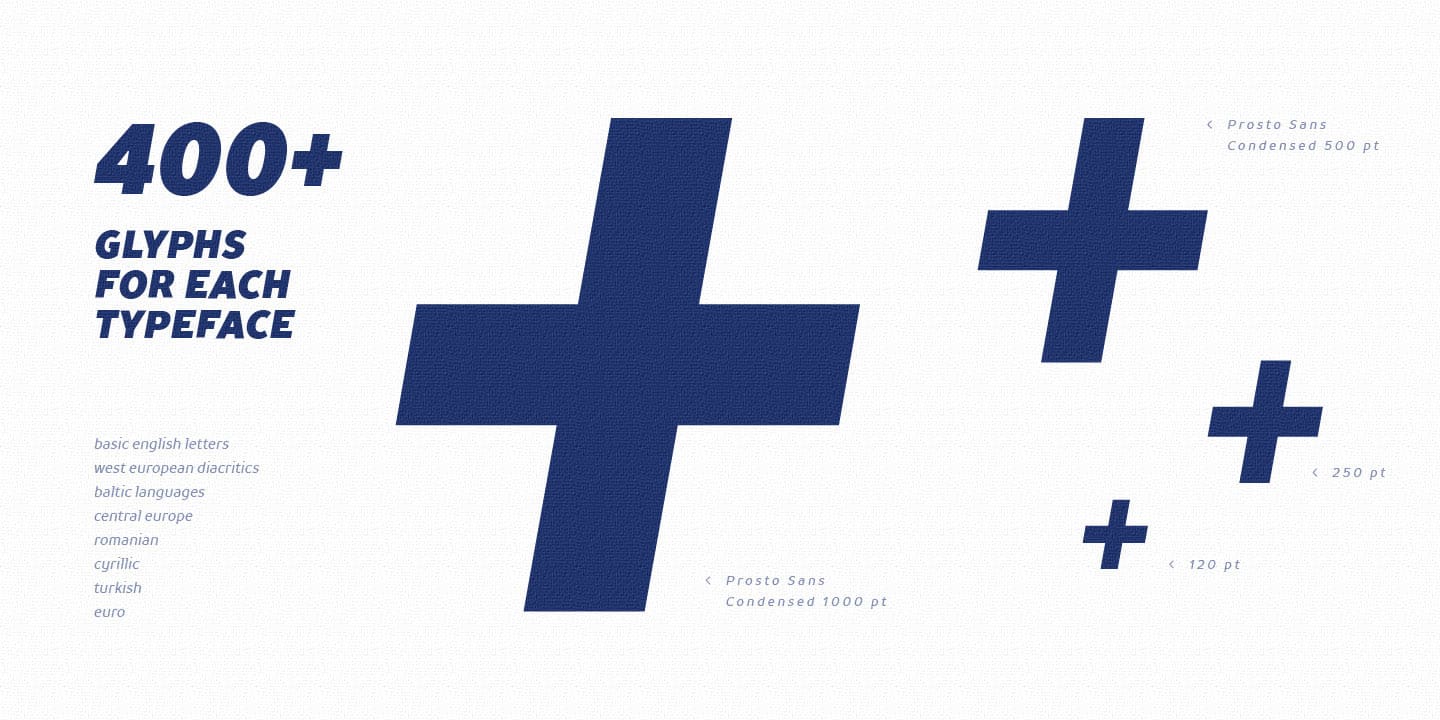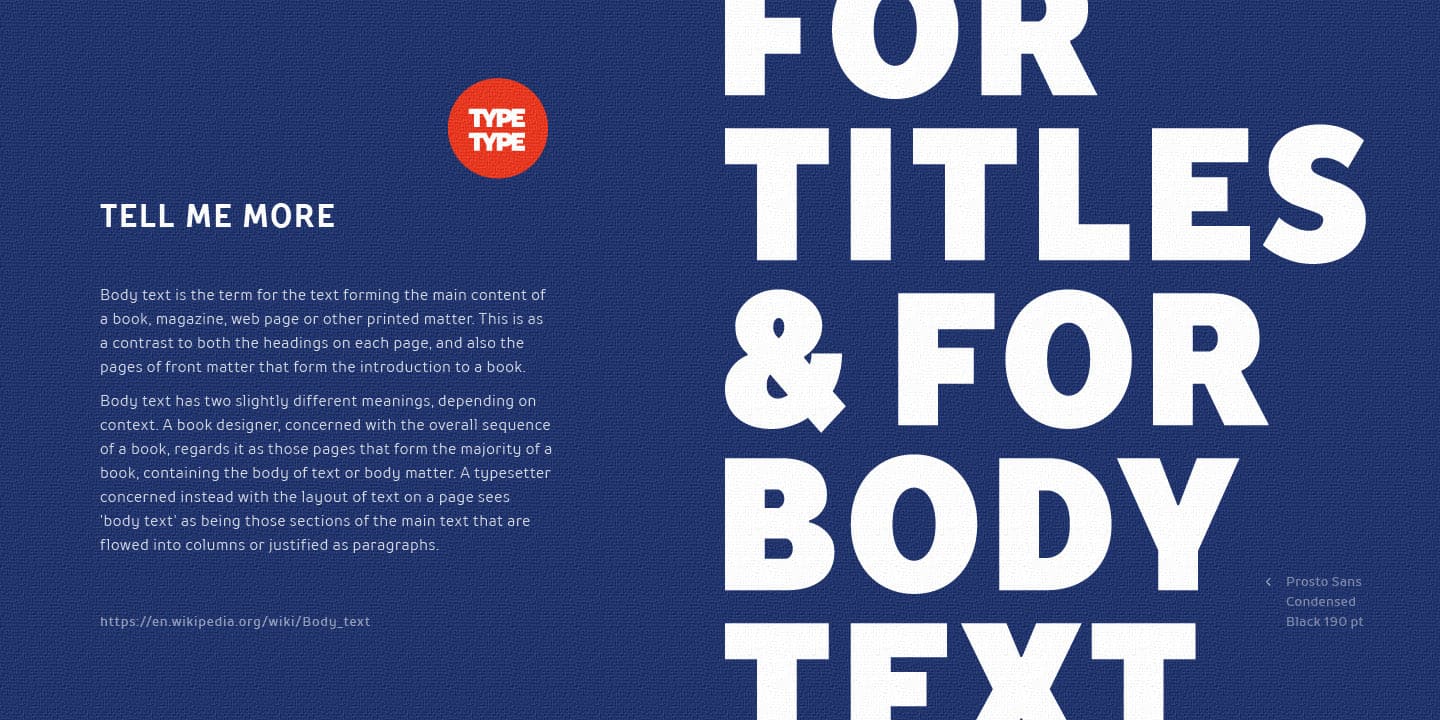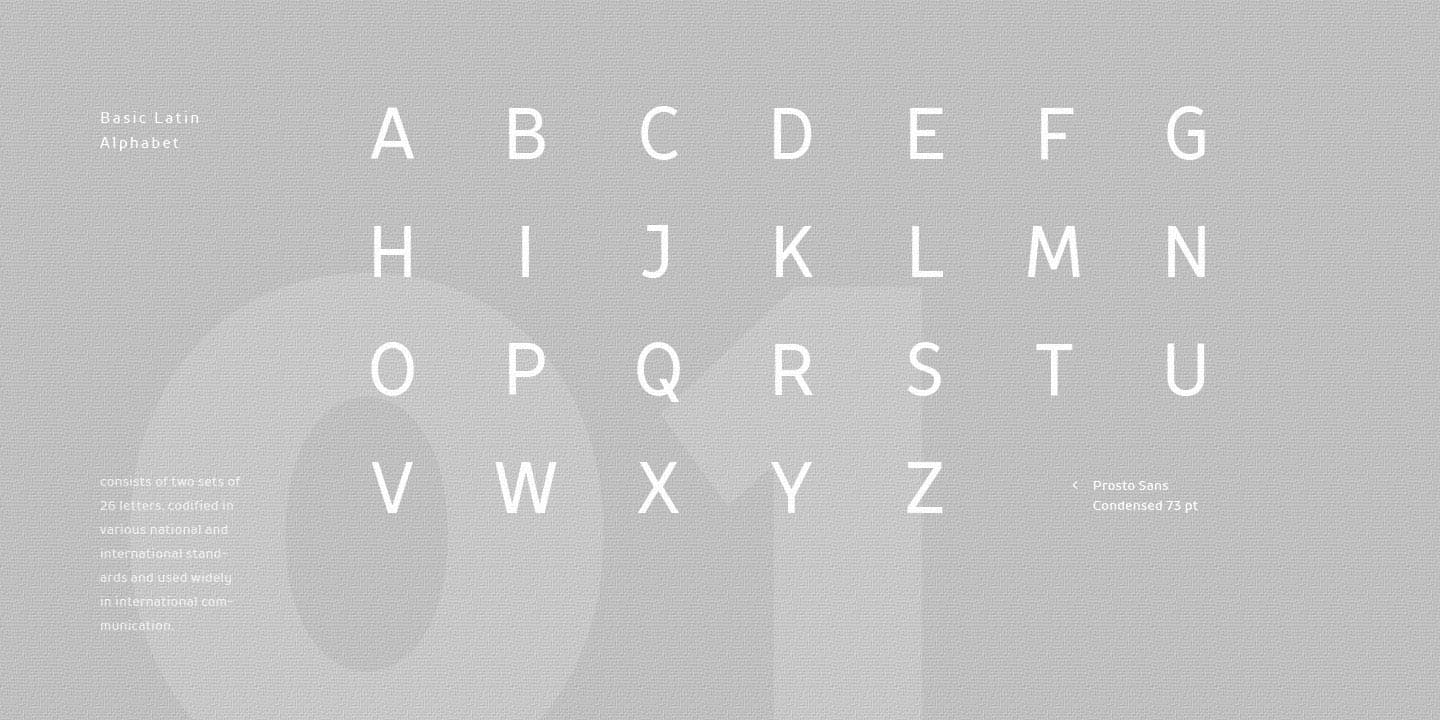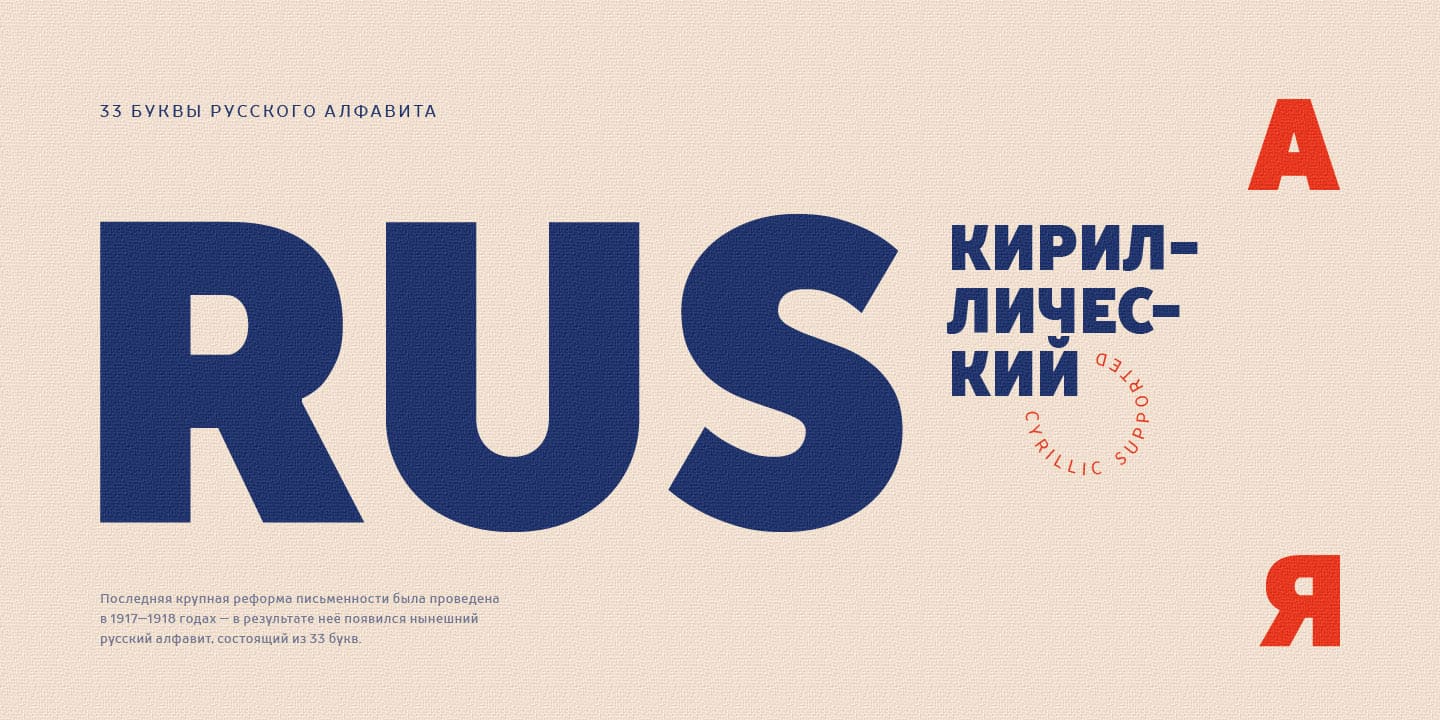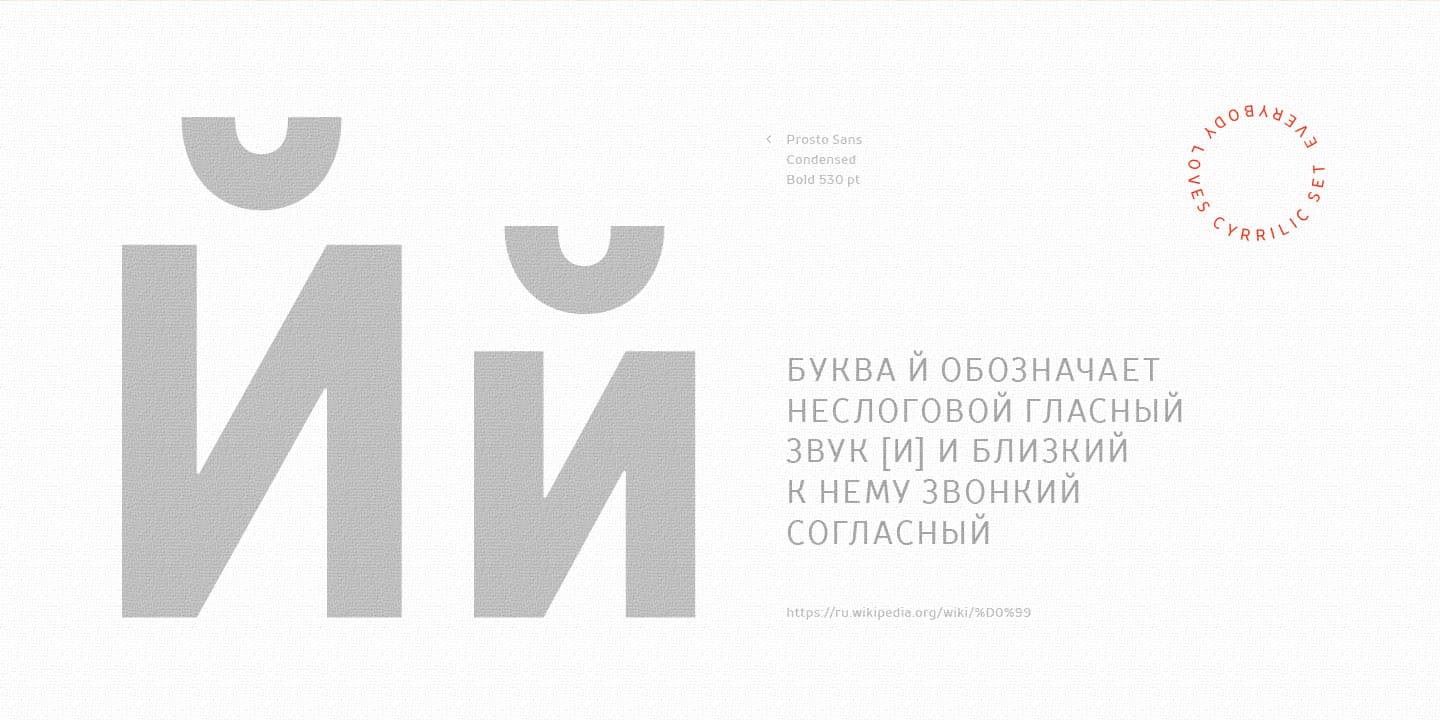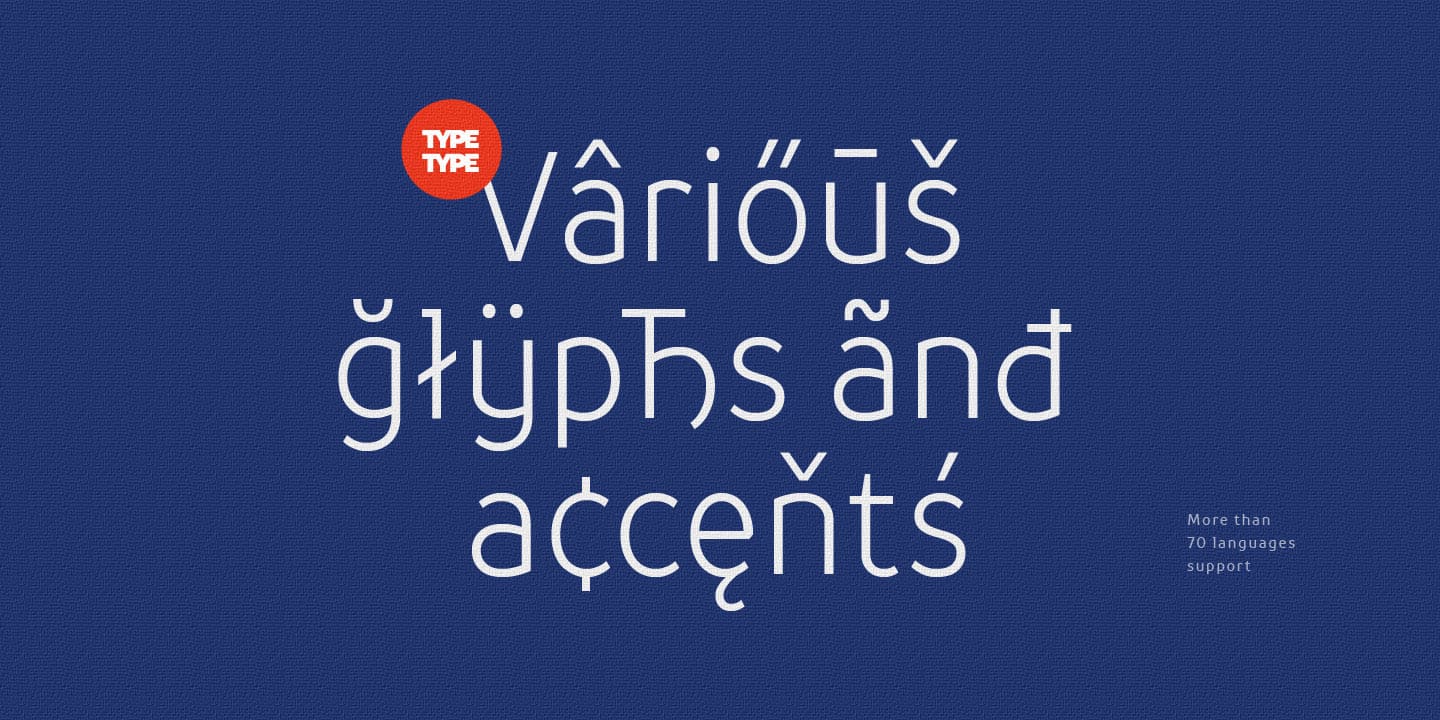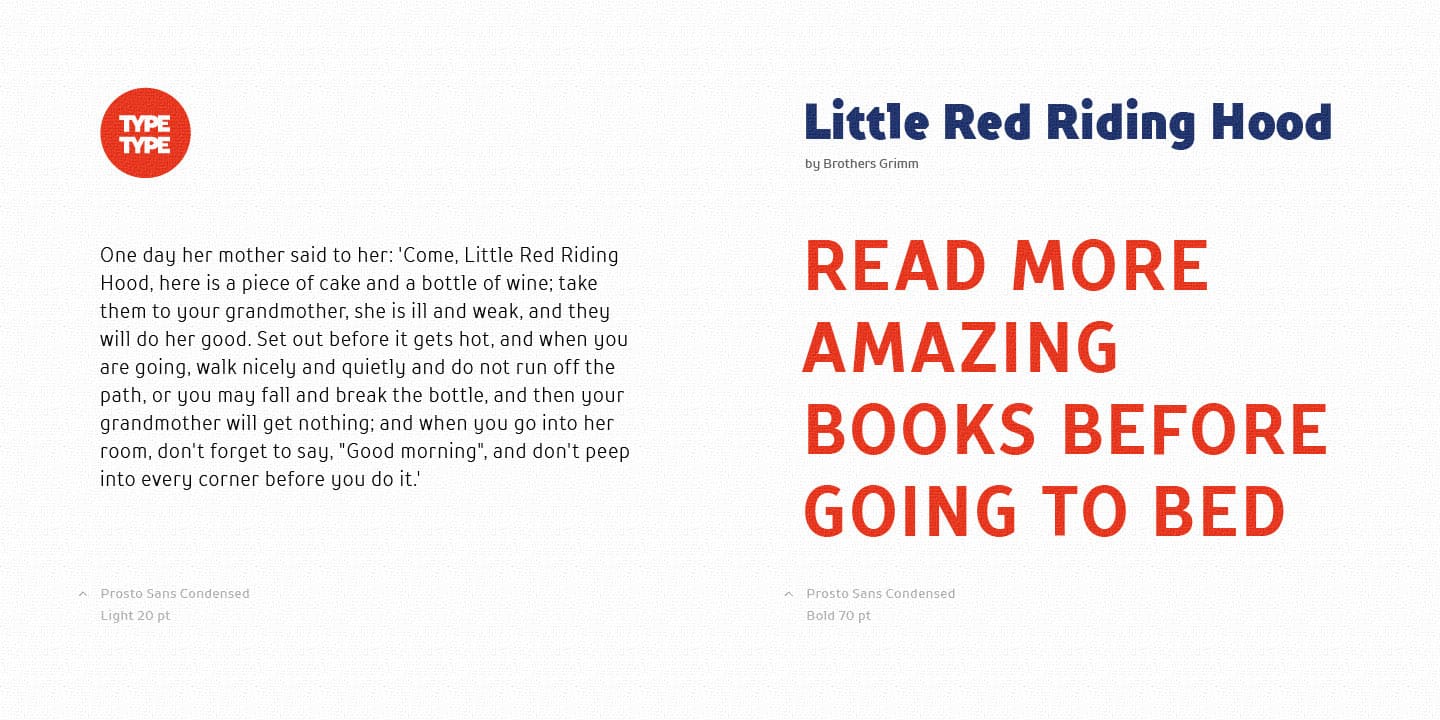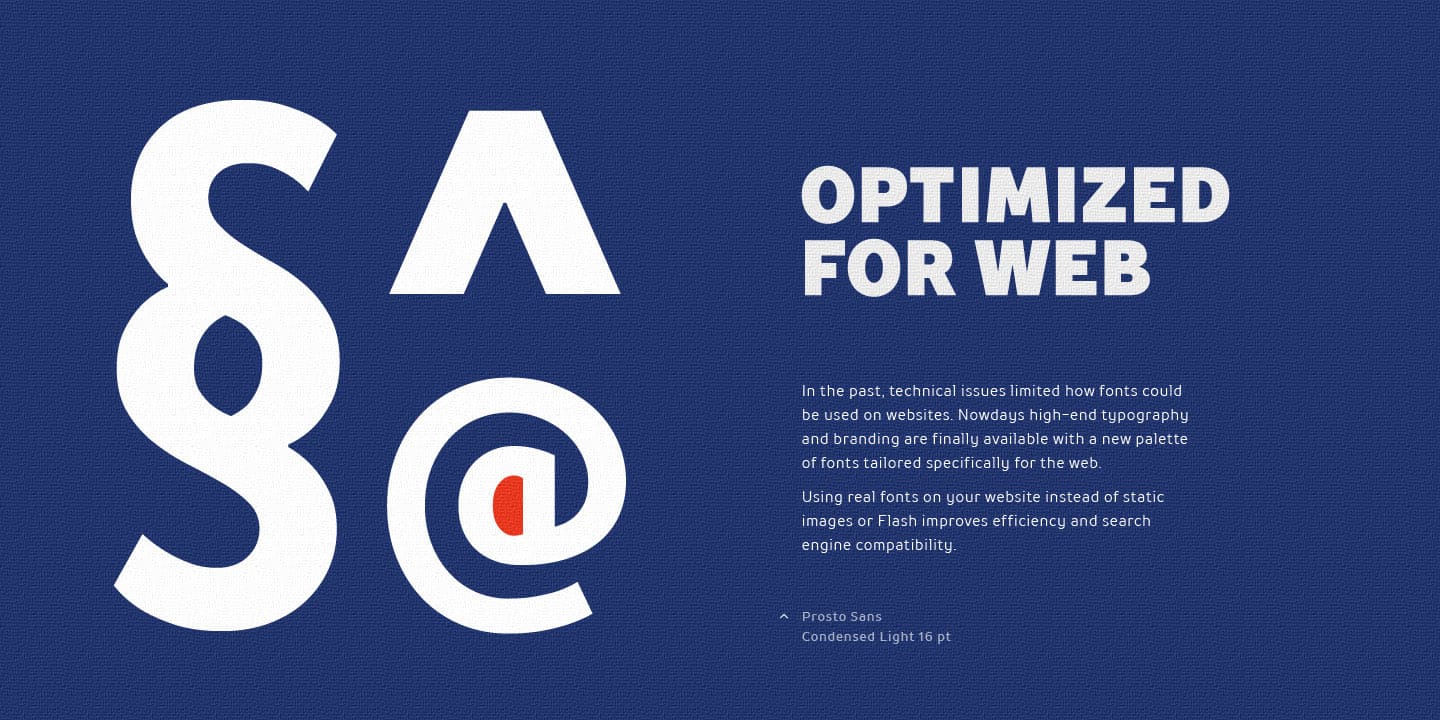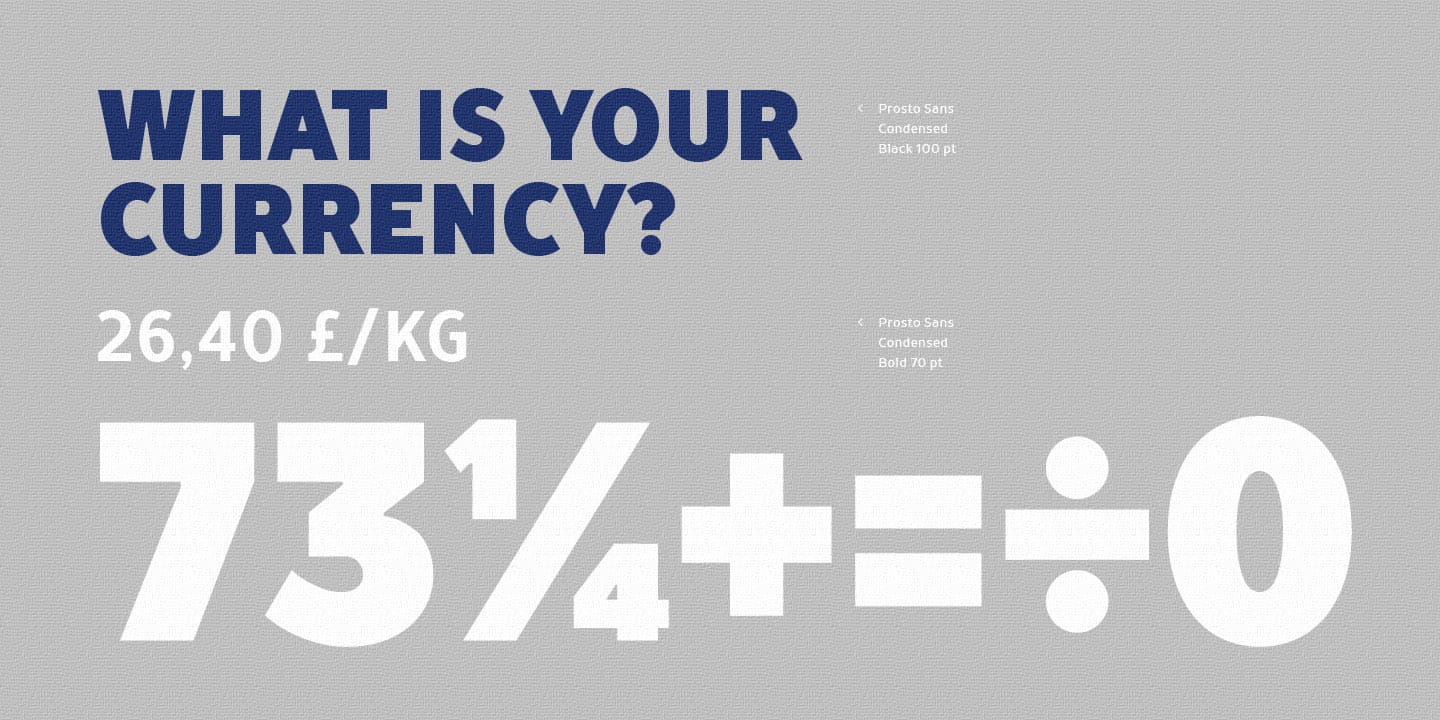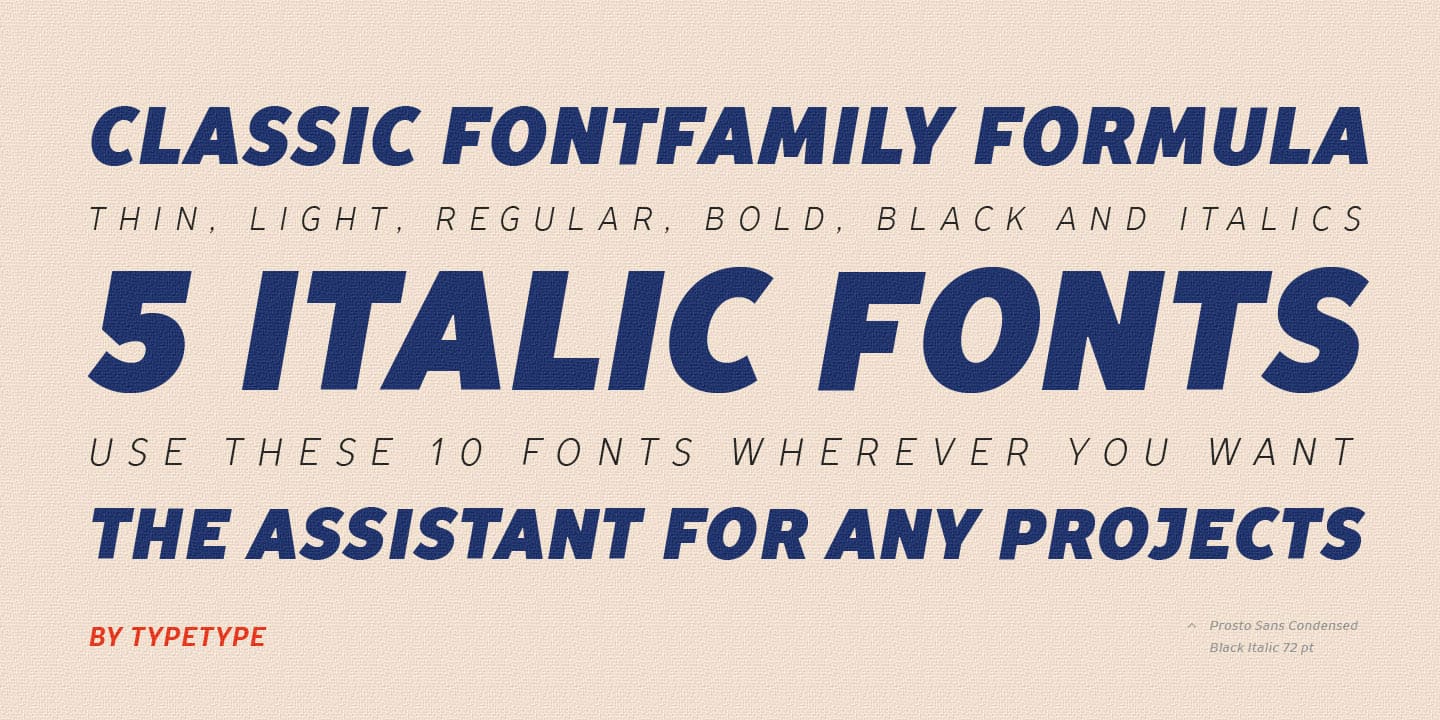
TT Prosto Sans Condensed Family (10 fonts)
‘Prosto’ in the name of the font is translated into Russian as “Simply”. Prosto Sans Condensed is the condensed version of the Prosto Sans font family. We created the simplest font possible, and it will fit perfectly into any design. Each line of this typeface is emotionally neutral and aims to not emphasize the text in its graphic representation, but only to use the text to convey the meaning. Having Prosto Sans and Prosto Sans Condensed in your collection is like having a universal tool that helps you every day when you need to ‘mend’ or ‘repair’ something. Due to condensed proportions, any text array fits a smaller text field than usual.